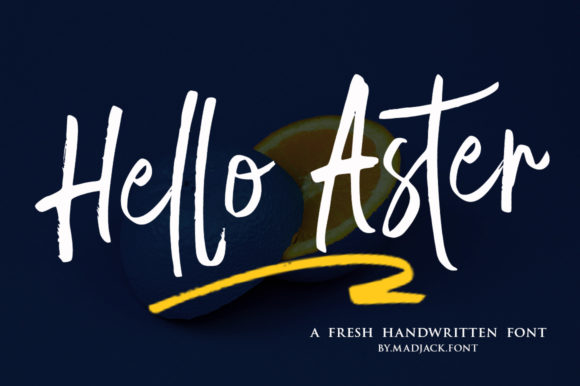
Introducing Hello Aster - A Script Font Family that's Bursting with Charm and Creativity!
Hello Aster is a beautiful and adorable handwritten font that exudes a warm and inviting charm. Its casual, flowing strokes bring a touch of elegance and playfulness to any design project. Whether you're creating stunning logos, eye-catching social media posts, or heartfelt invitations, Hello Aster is the perfect font to add a personal and enchanting touch.
With its easy-to-read style and versatile personality, Hello Aster is the font that keeps giving. Its carefully crafted characters dance across the page, creating a sense of movement and energy that draws the reader in. Each glyph is a work of art, featuring delicate curves, whimsical flourishes, and a touch of whimsy that makes every word a visual delight.
But Hello Aster is more than just a pretty face. It's a font that's incredibly versatile and adaptable, making it the perfect choice for a wide range of projects. Whether you're working on a wedding invitation, a children's book, or a marketing campaign, Hello Aster has the power to transform your words into something truly special.